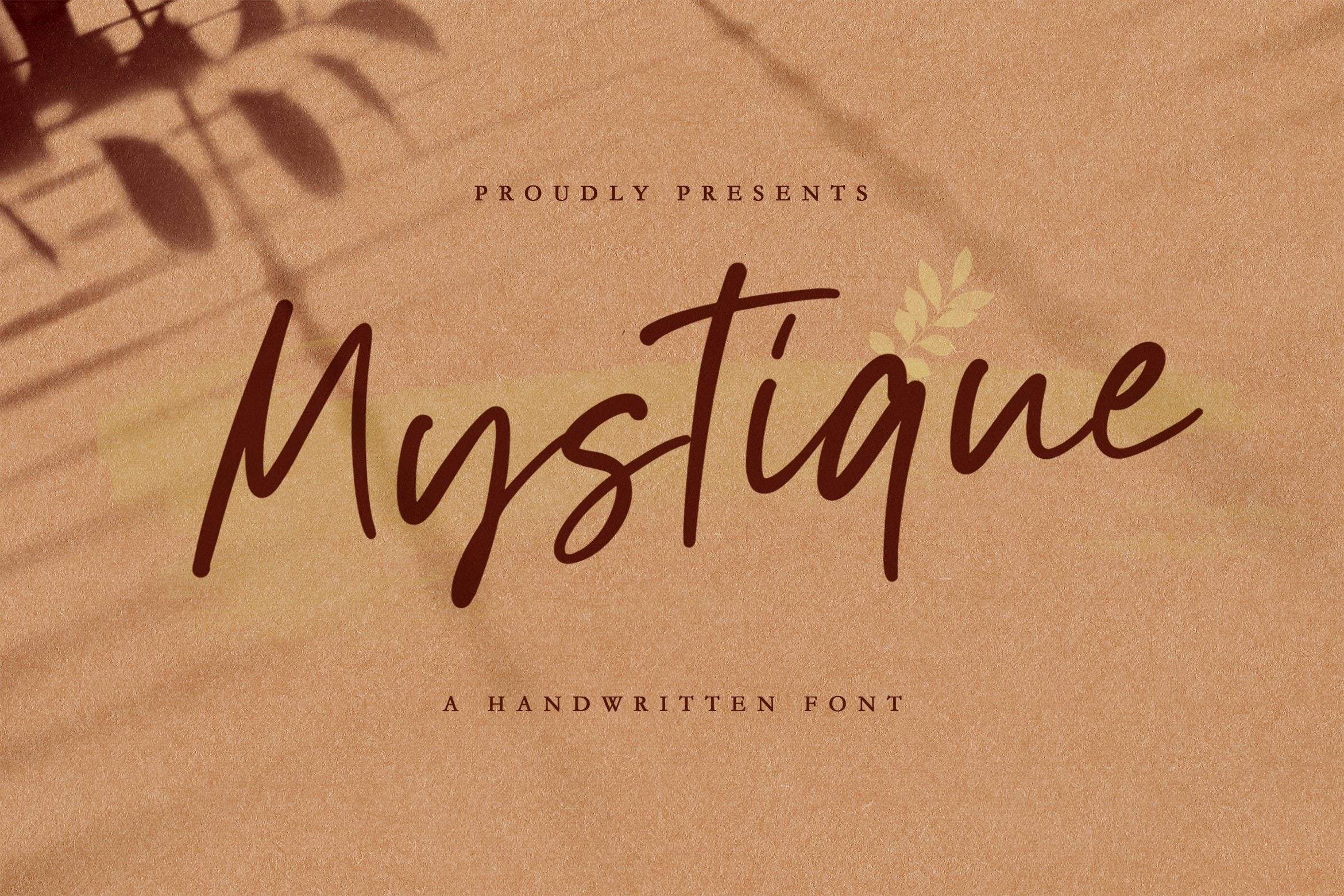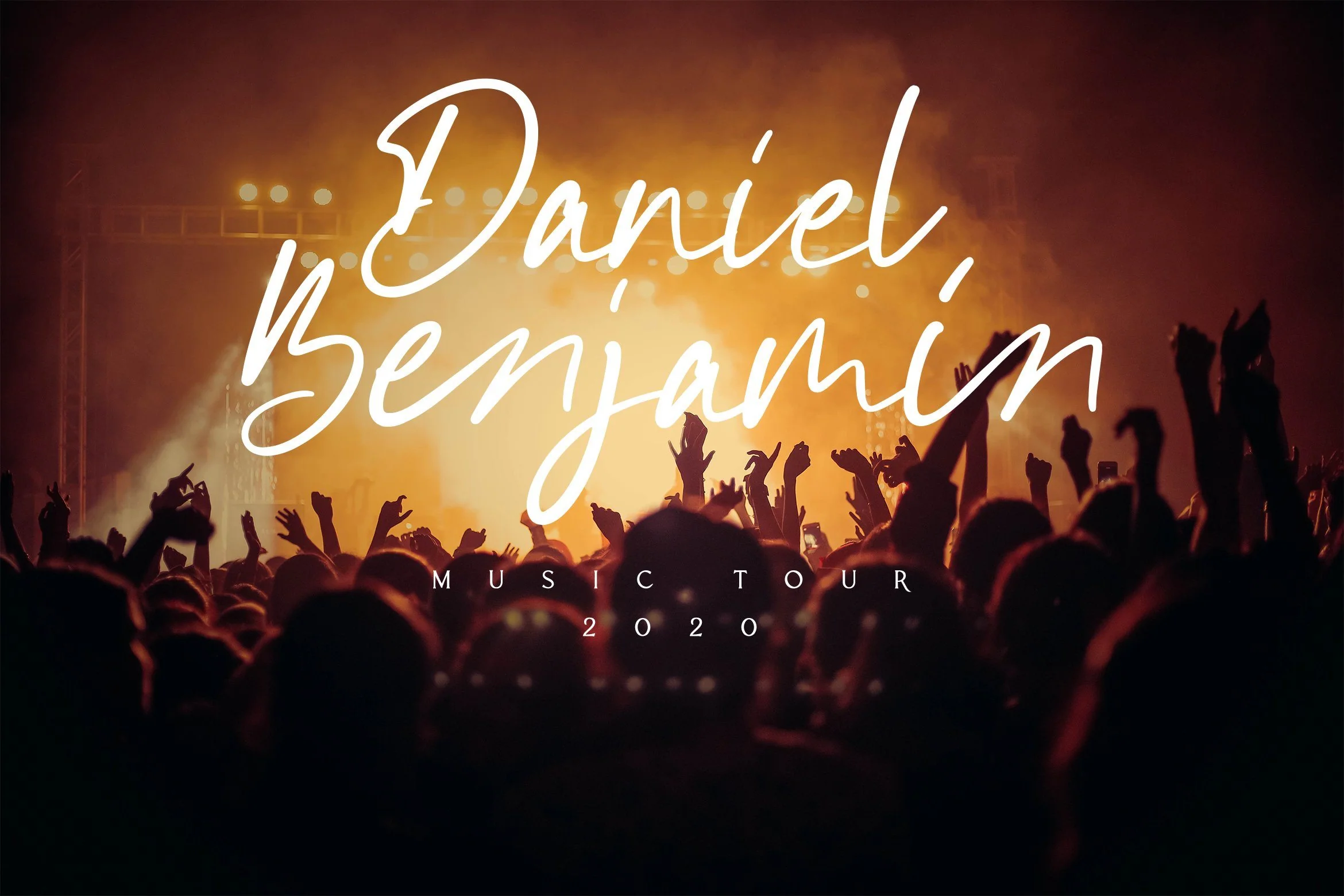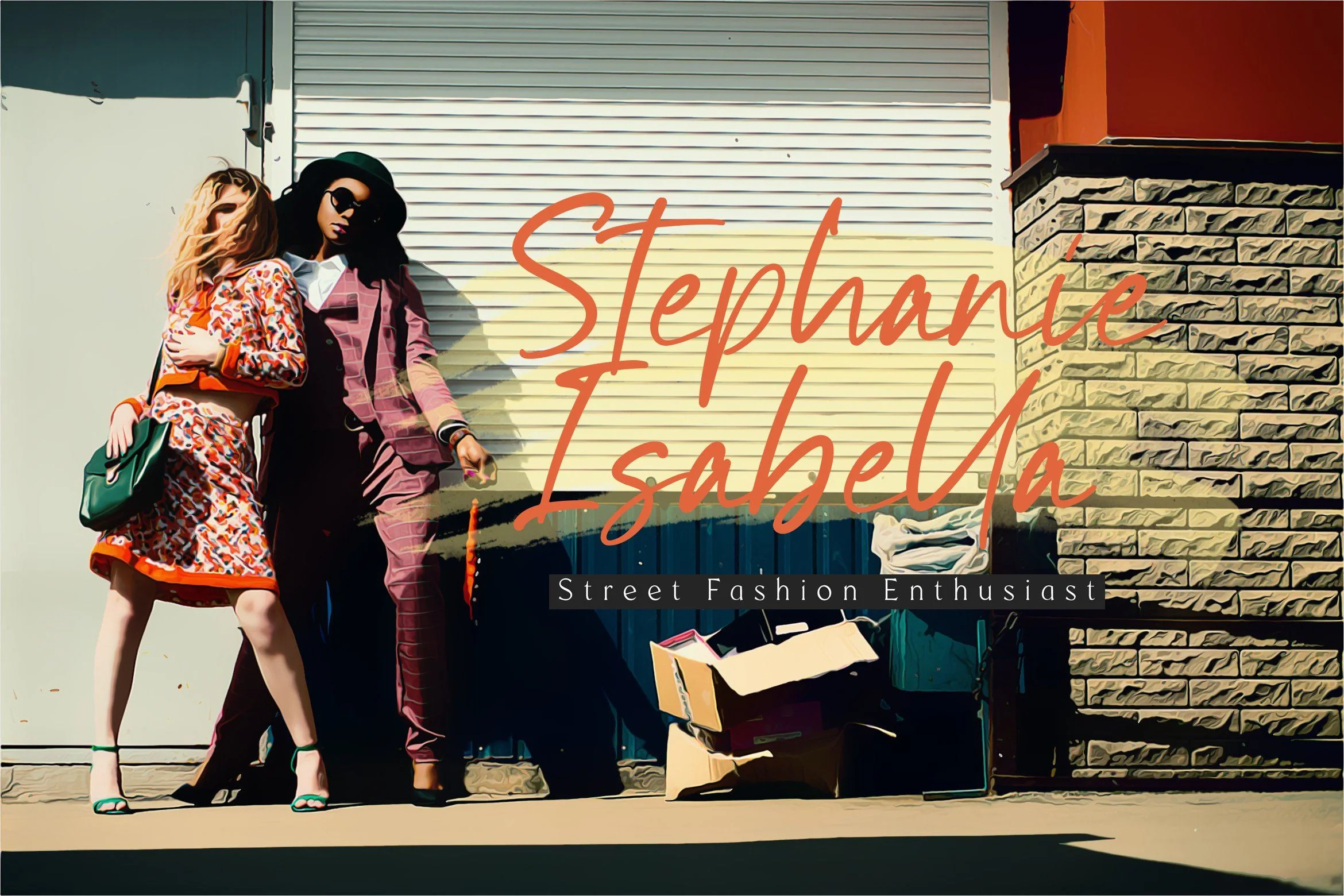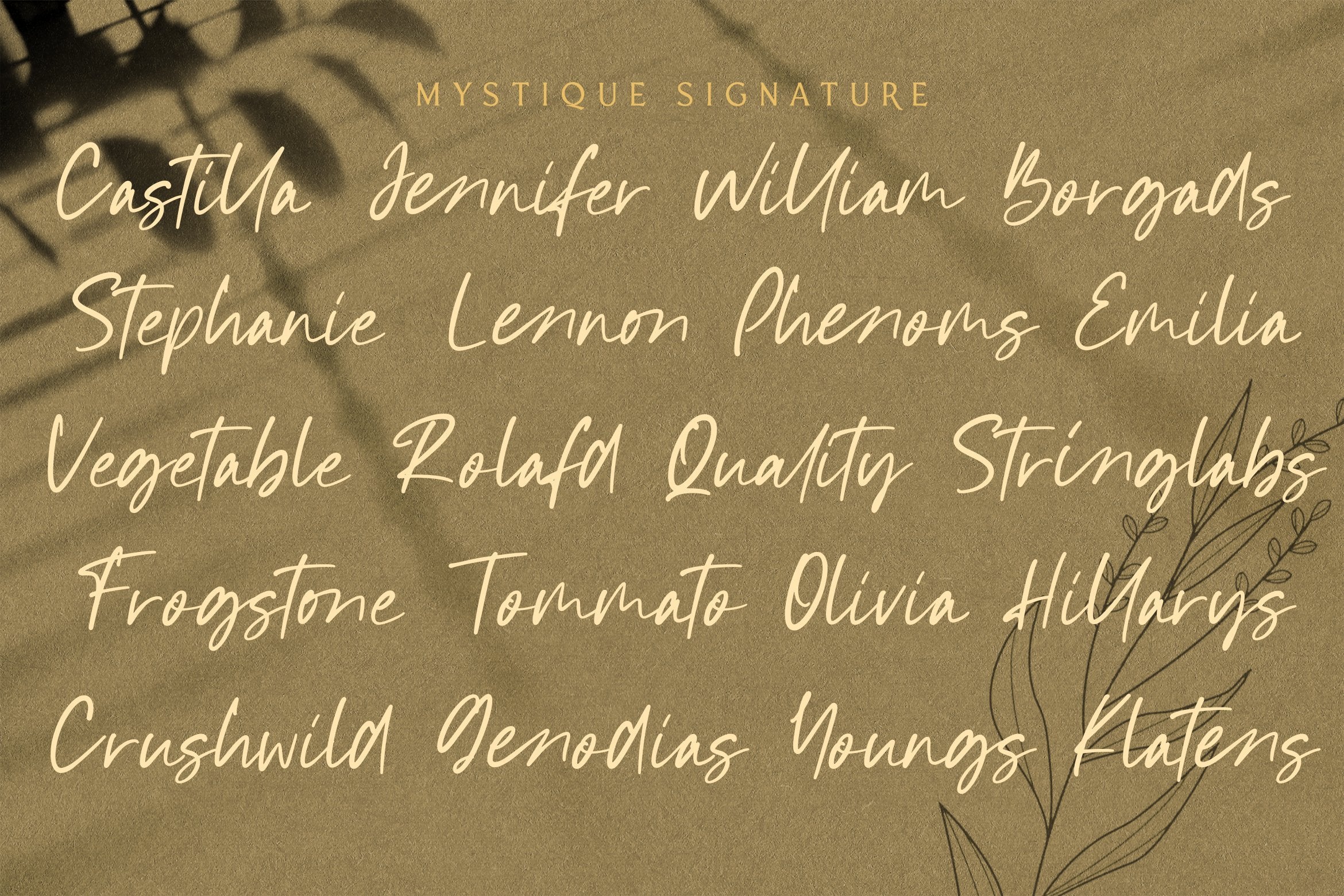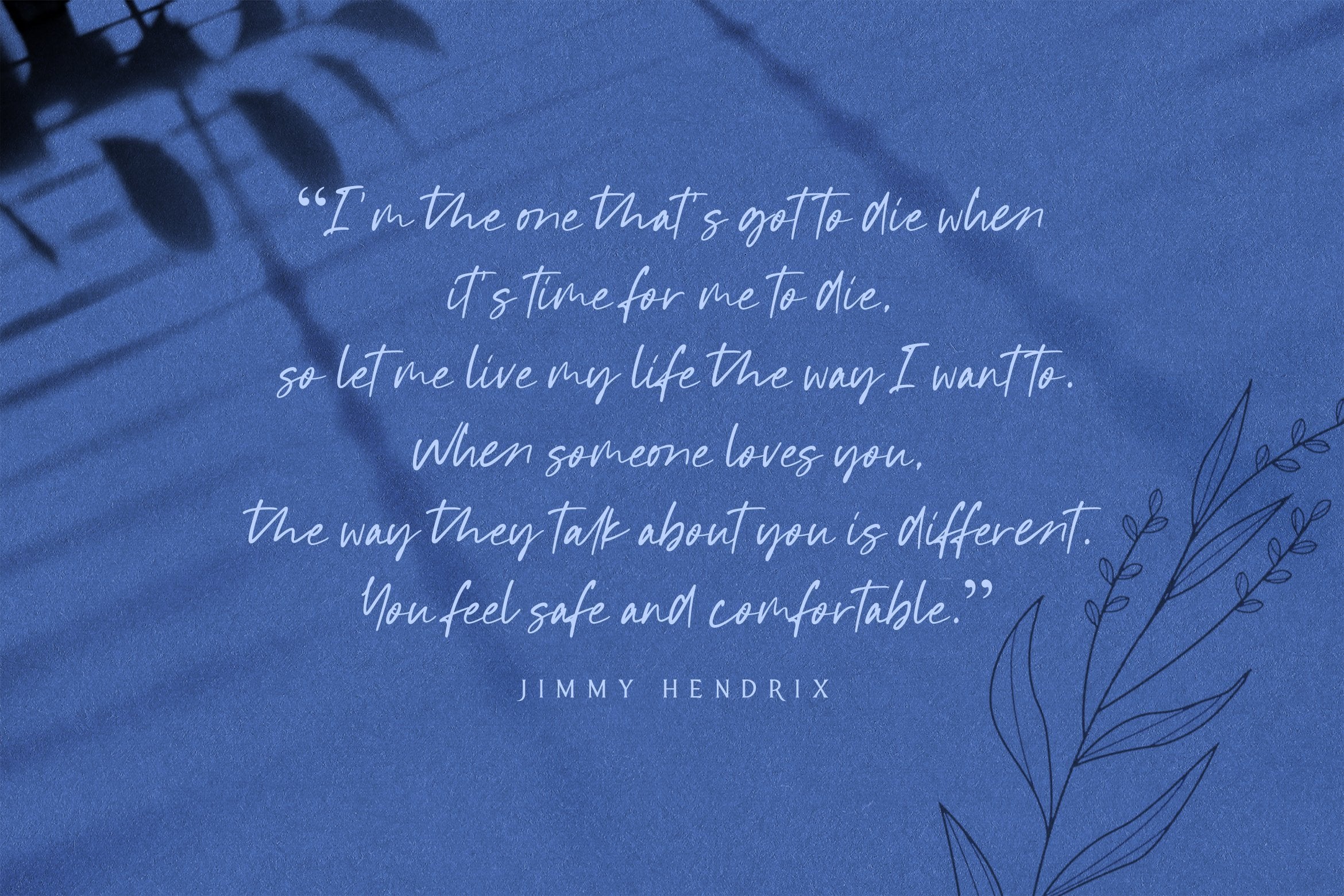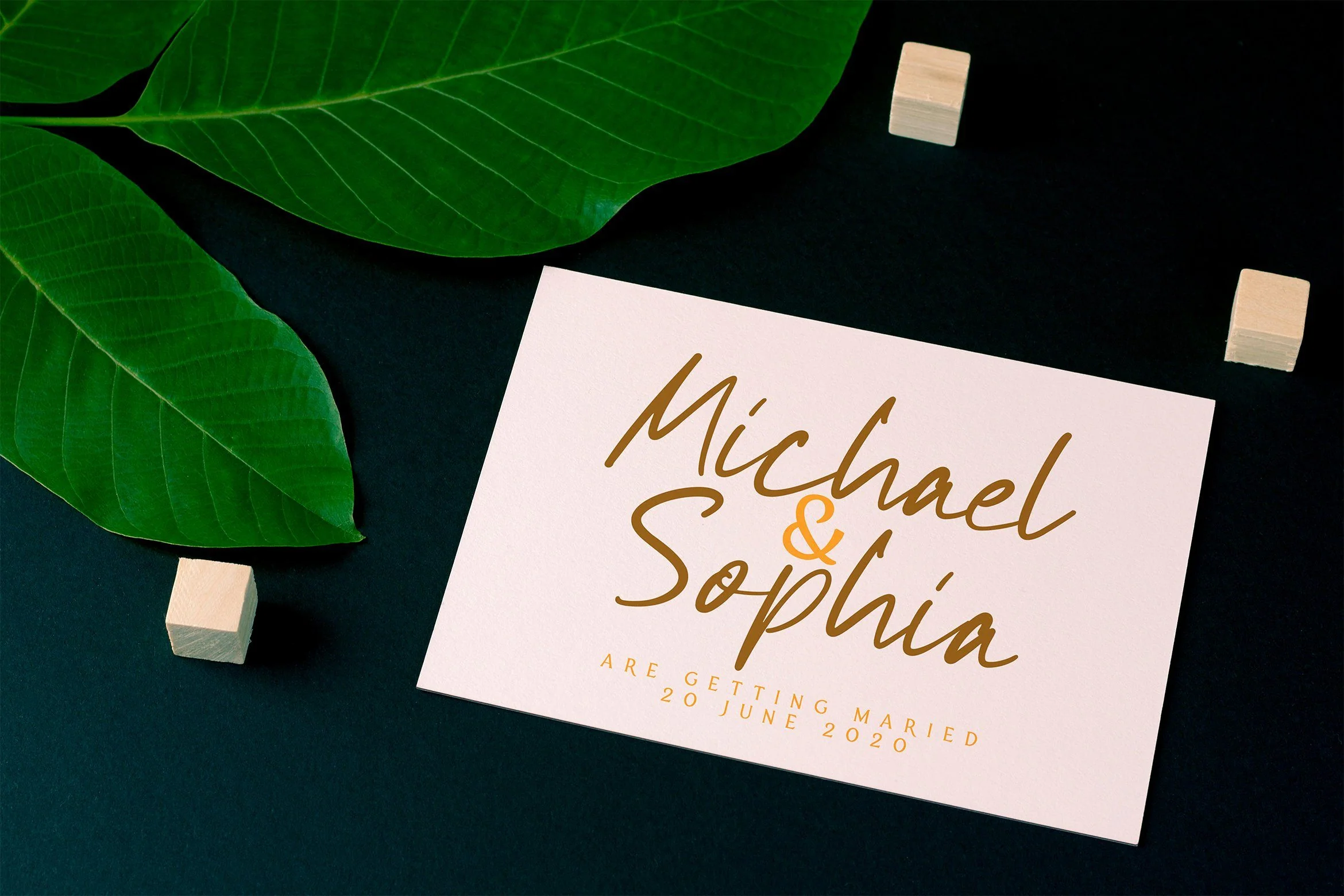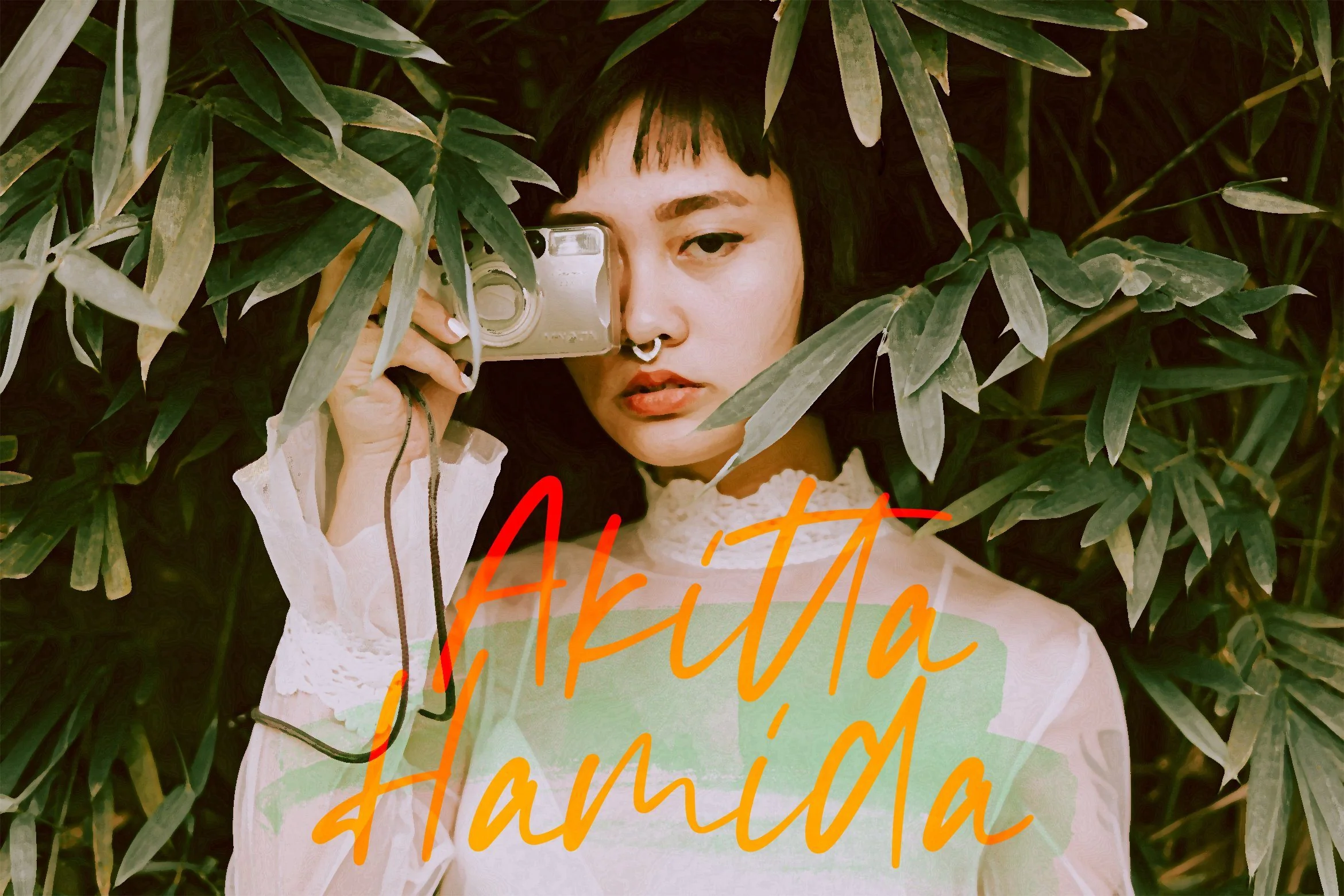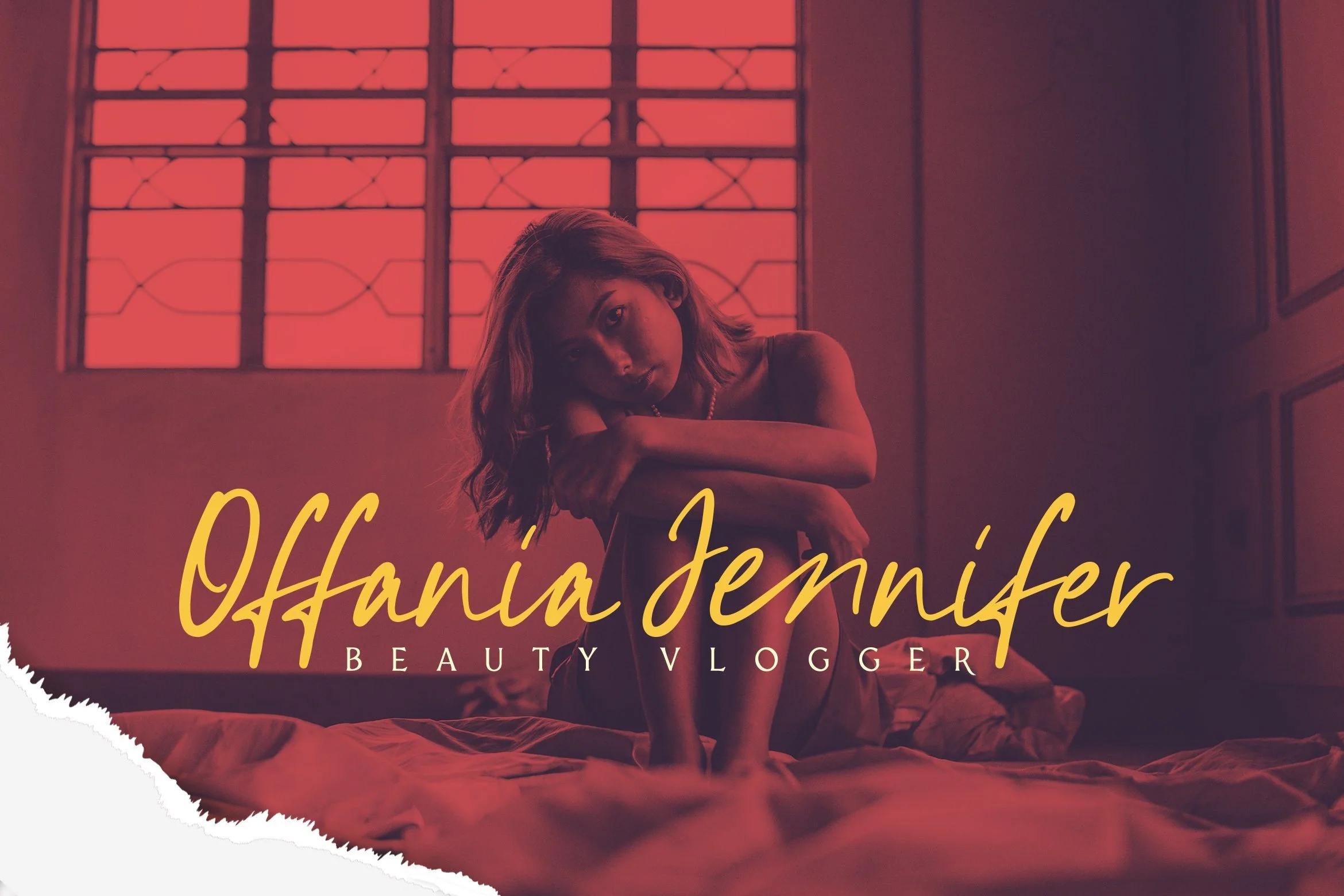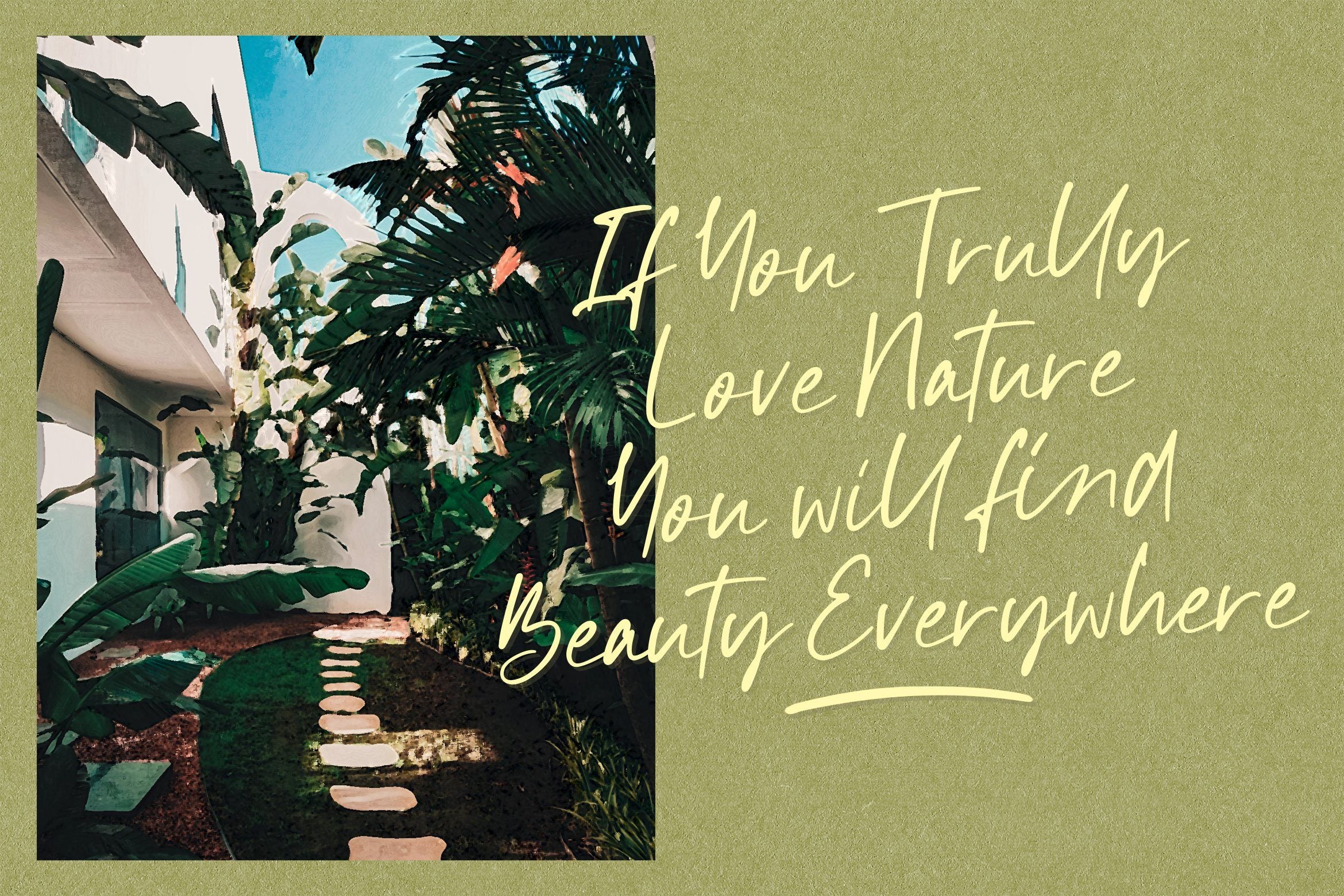
Mystique - Luxury Signature Font
Introducing Mystique - Luxury Signature Font
Mystique is a Script Font with Luxury Signature Style. This font inspiring from Logo Brand who used font as their logo (Logotype). This font is perfect for fashion brand, wedding invitation, business card, logo brand, signature, and then calligraphy.
This Font Template contains Classy, Elegant, Creative, Cool and has a Unique Concept.
Introducing Mystique - Luxury Signature Font
Mystique is a Script Font with Luxury Signature Style. This font inspiring from Logo Brand who used font as their logo (Logotype). This font is perfect for fashion brand, wedding invitation, business card, logo brand, signature, and then calligraphy.
This Font Template contains Classy, Elegant, Creative, Cool and has a Unique Concept.